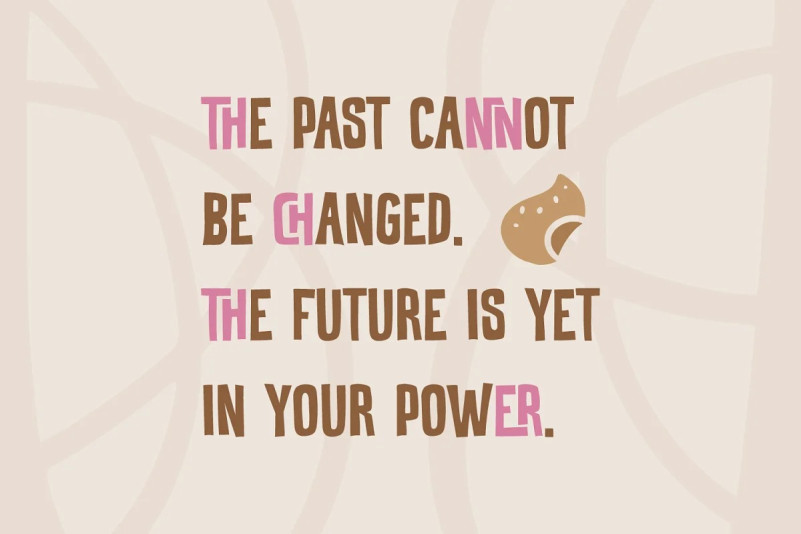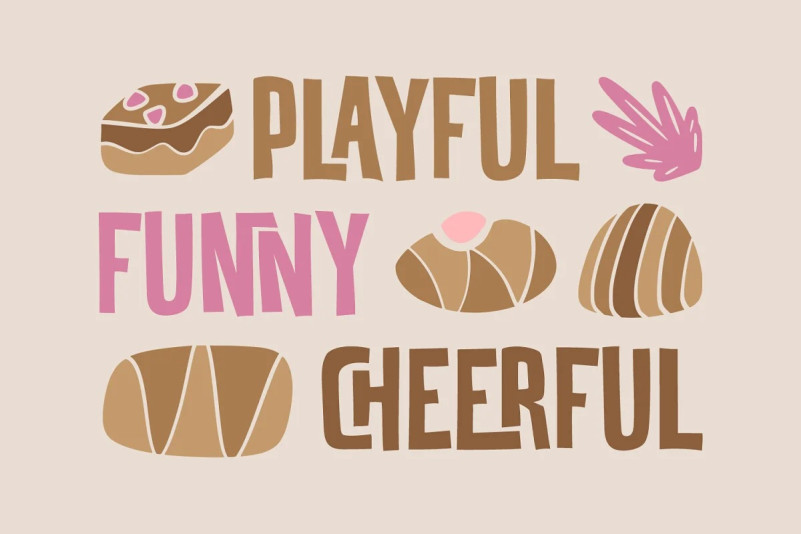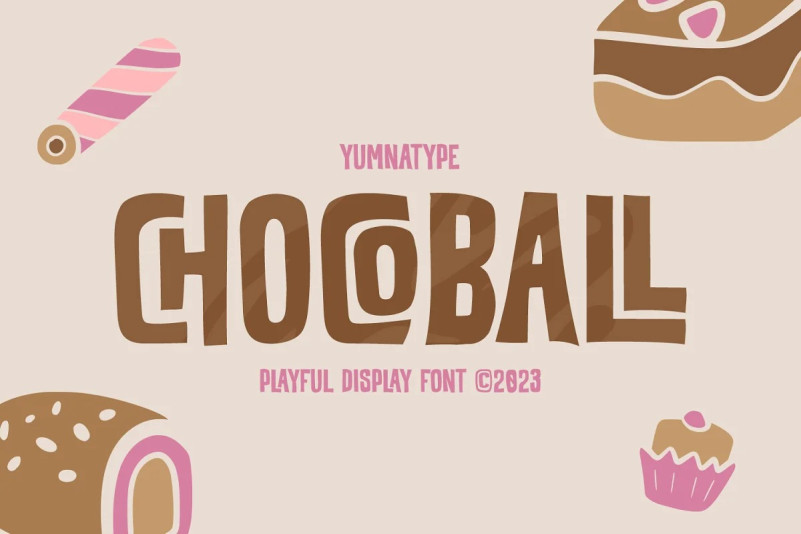
Chocoball Font
Chocoball Font is an uppercased display font designed in playful, modern concepts. It has firm, attractive impressions because of the inclined square letter shapes making it more unique than the others. Furthermore, it can show off your desired messages on your designs easily with the use of the uppercases. Besides, this font is able to build up a strong, recognizable brand identity. A playful display font is flexible and suitable for various design types as its advantage because it is applicable for either formal or informal designs producing interesting, consistent results. You can apply Chocoball, which gives you a clipart as a bonus, for big text sizes to be legible. You can enjoy the available features here as well.